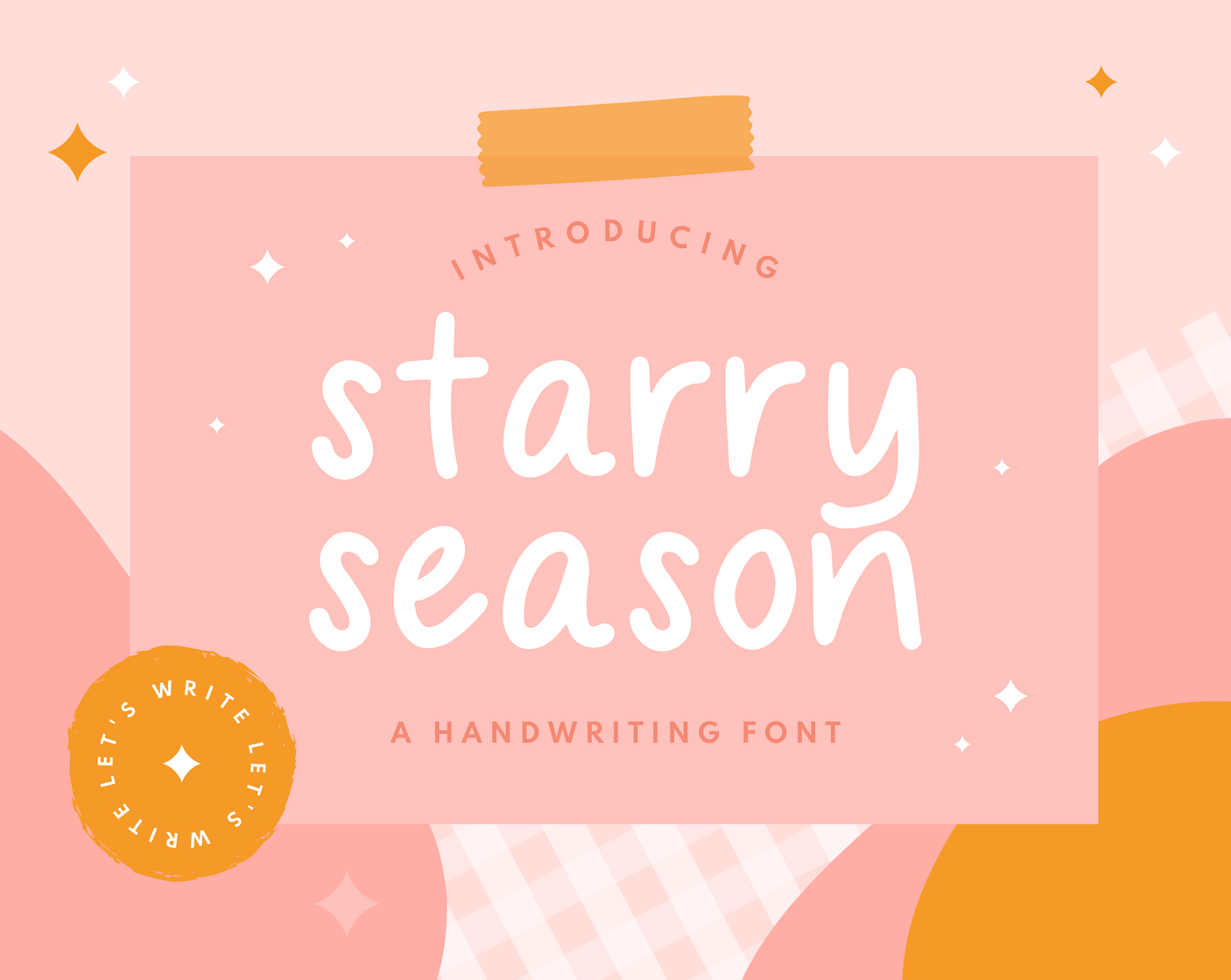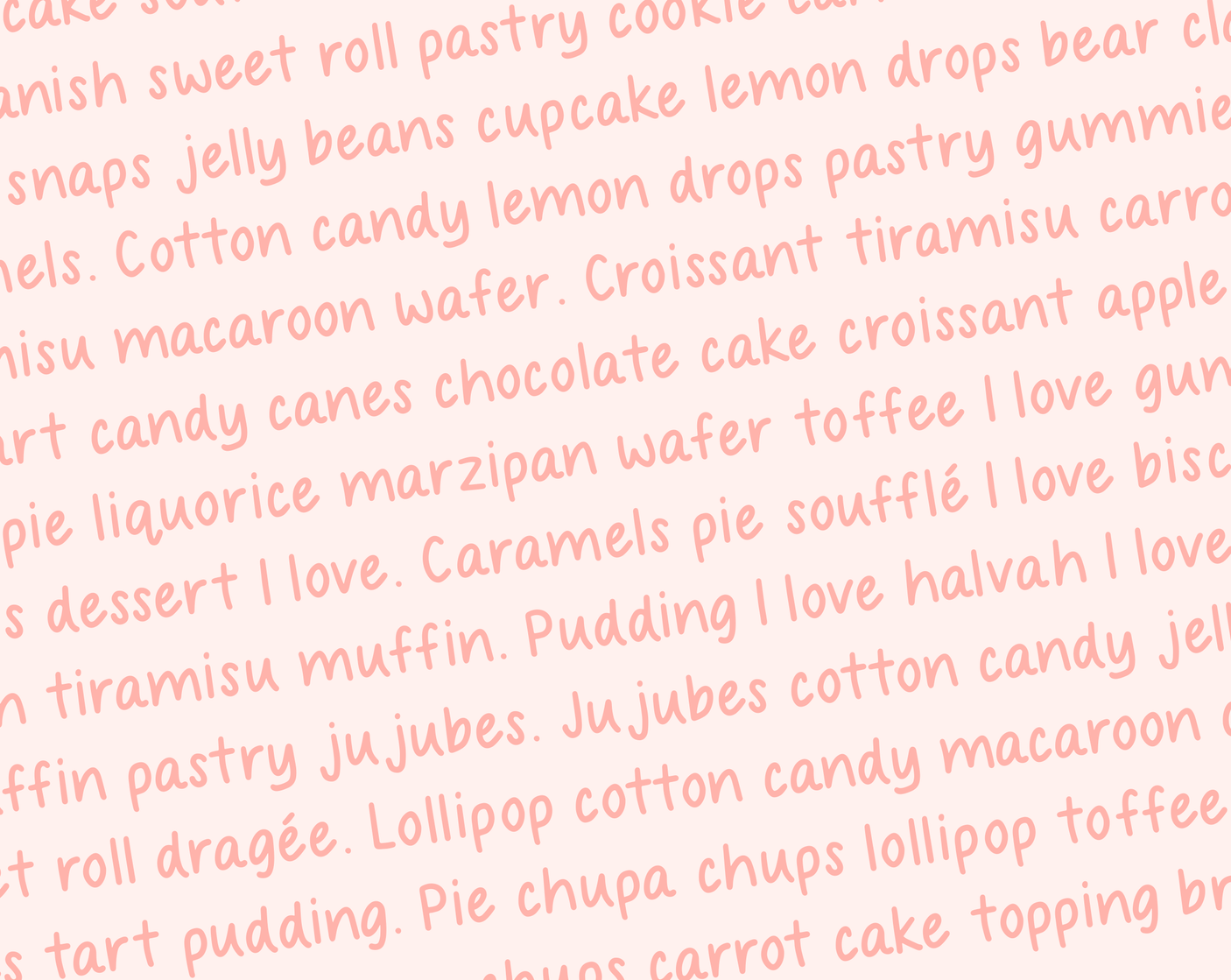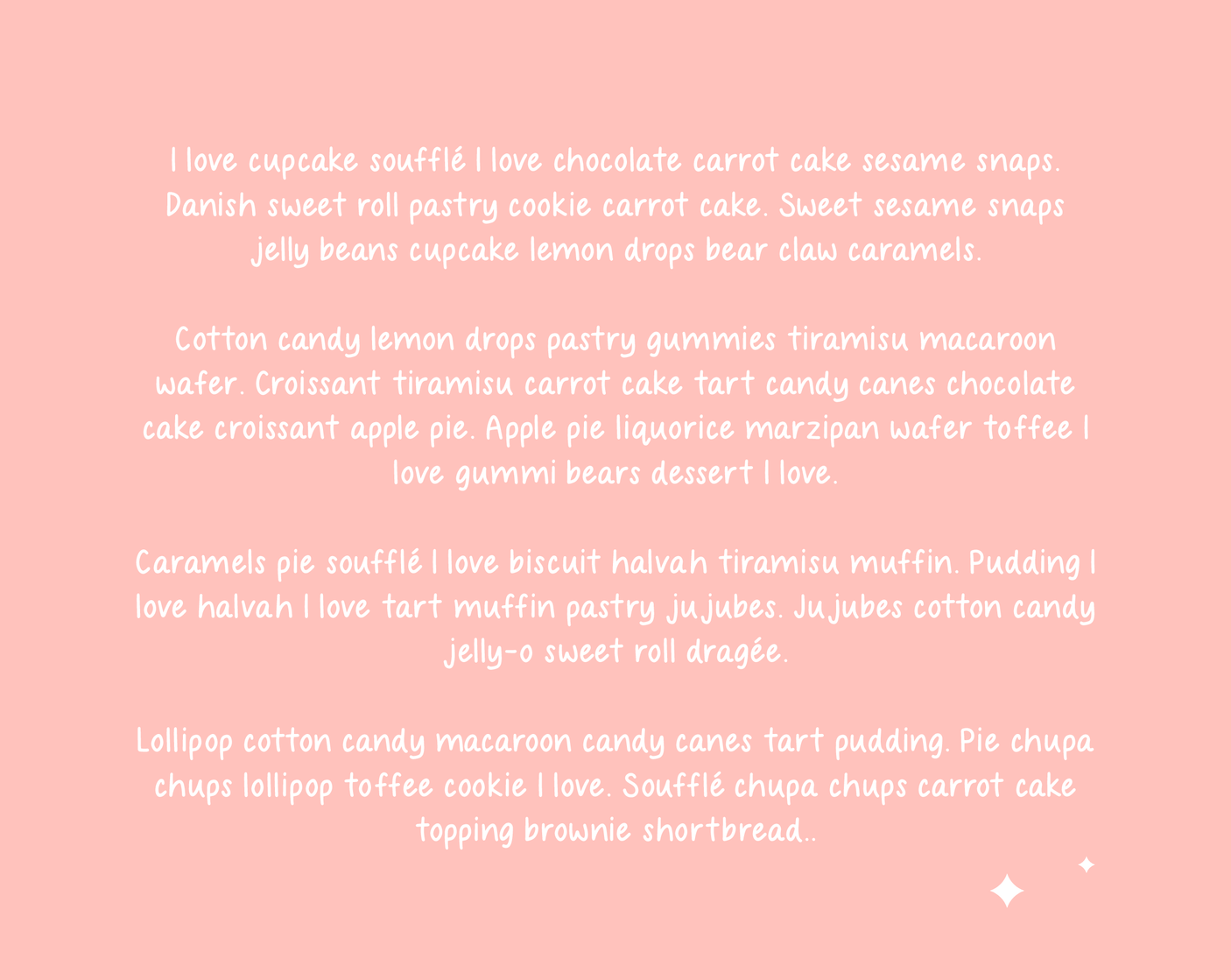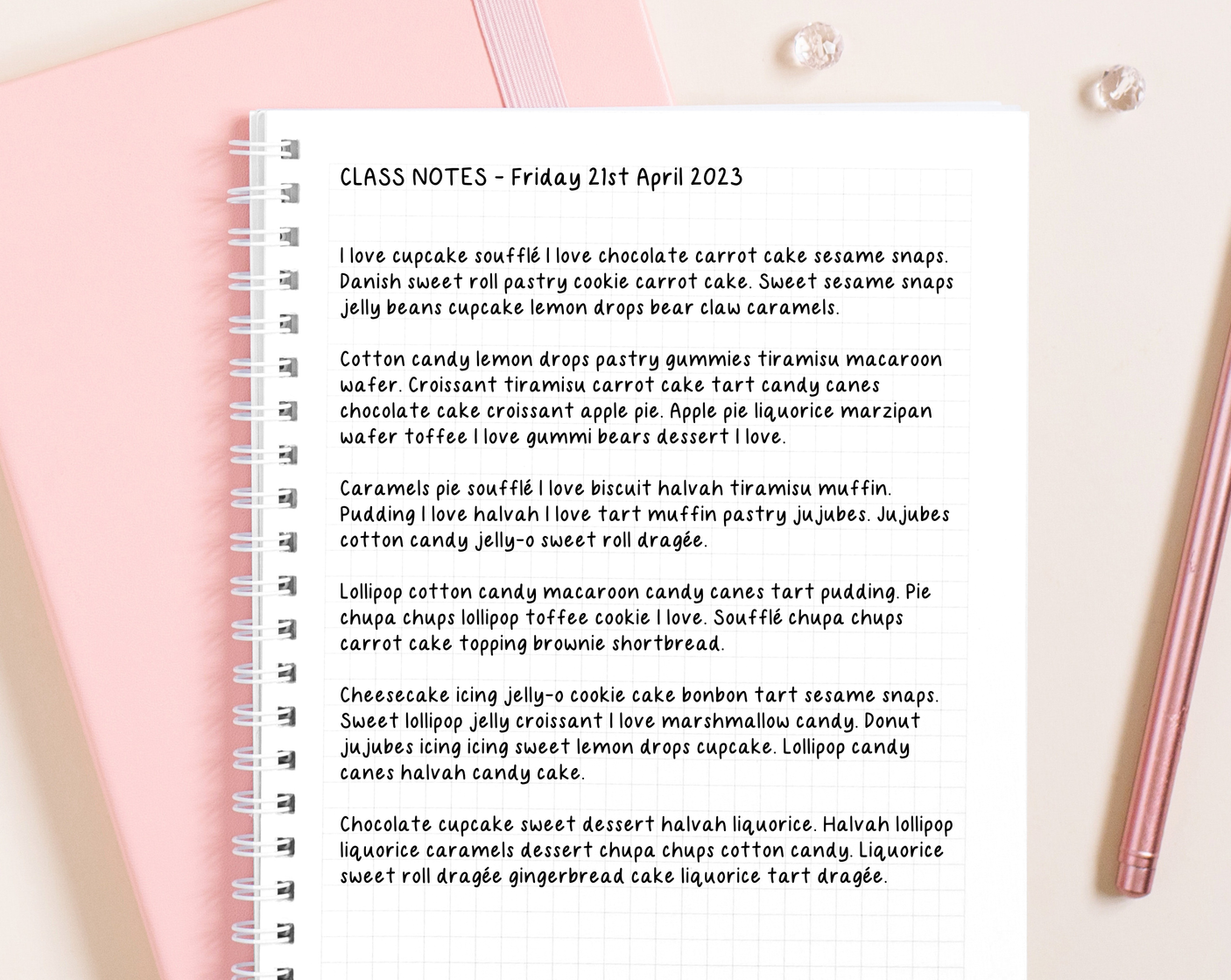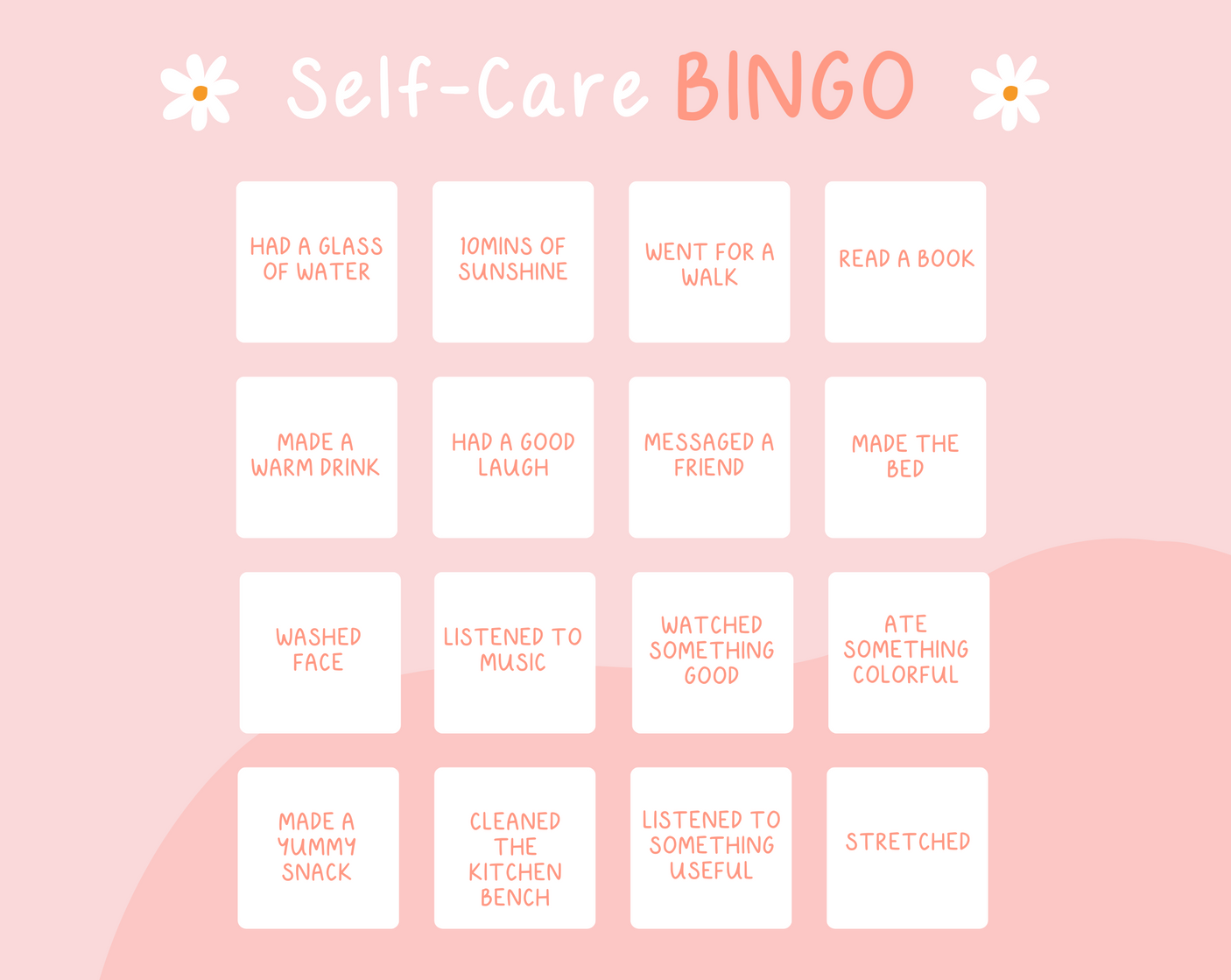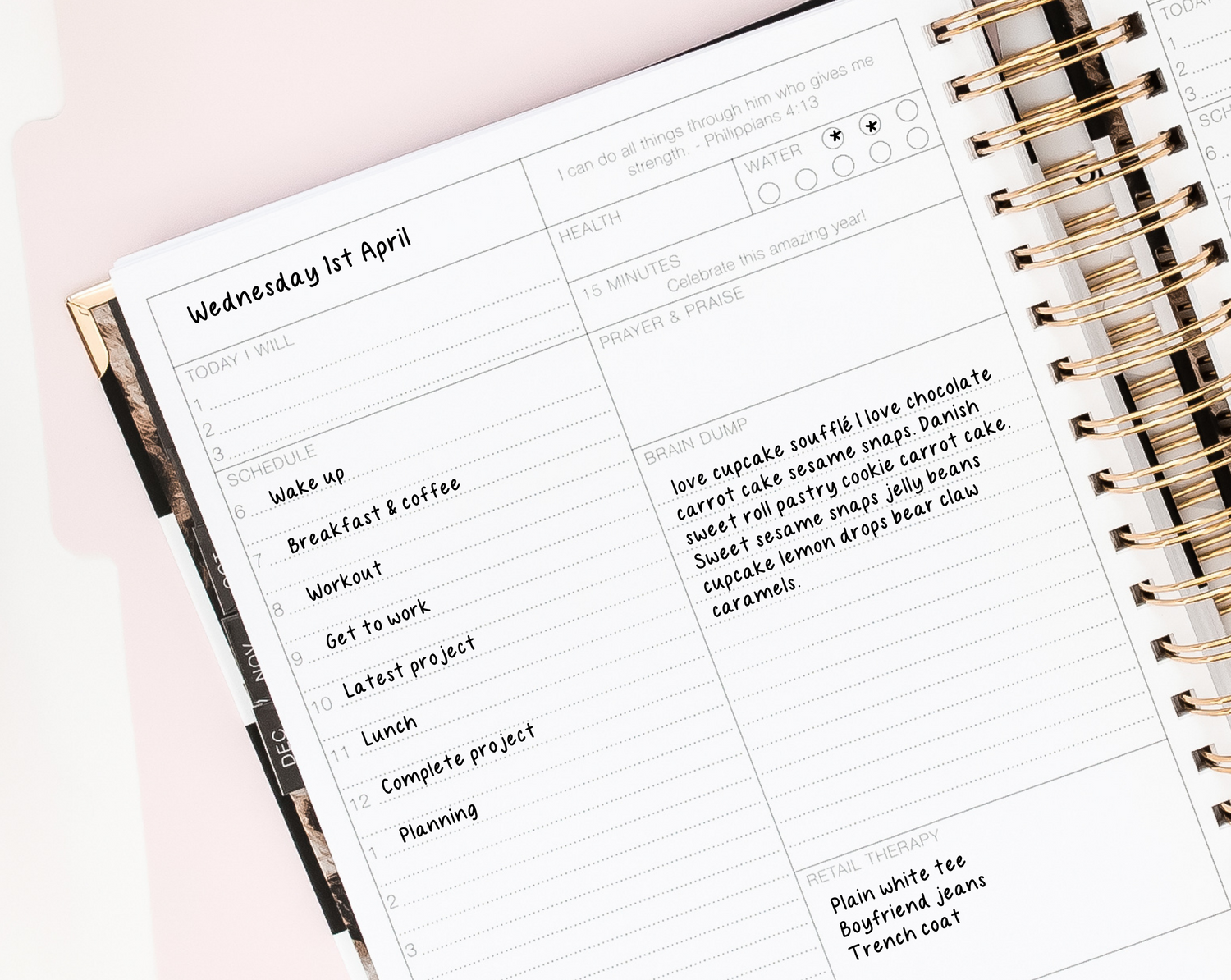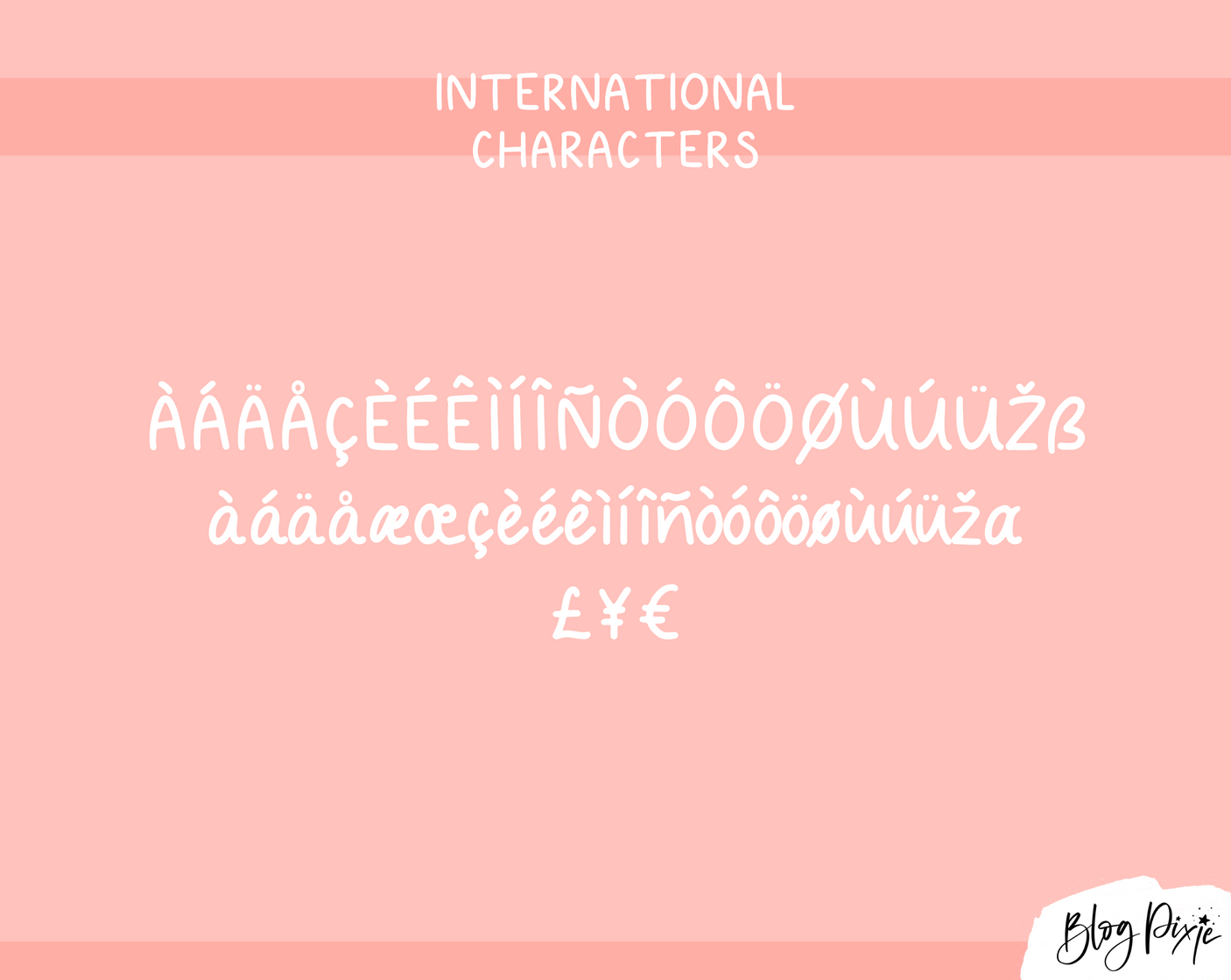
Starry Season Font
Handwriting font for Goodnotes called Starry Season. This font can be used on your iPad or Desktop in programs such as Goodnotes, Cricut, Procreate, Photoshop, Canva Pro and more. It’s a neat and simple handwritten font for digital planning, note-taking, logos, crafty work and digital projects.
If you’re looking for an easy to read, neat handwriting font for any type of digital or printed project, Starry Season is for you. It includes all uppercase and lowercase characters, along with a selection of international characters. This playful font is one of the best digital planner fonts you can find online and is a popular choice for those who love digital planning on an iPad.